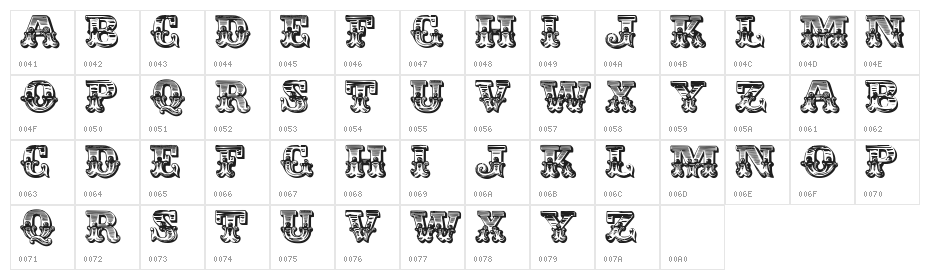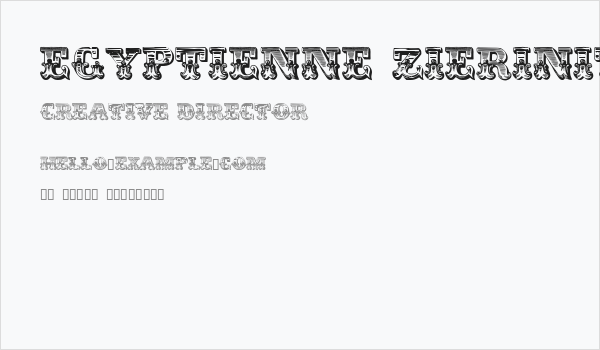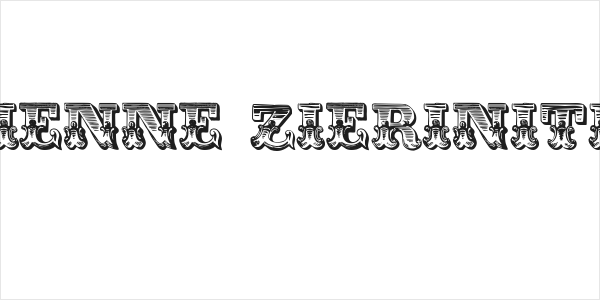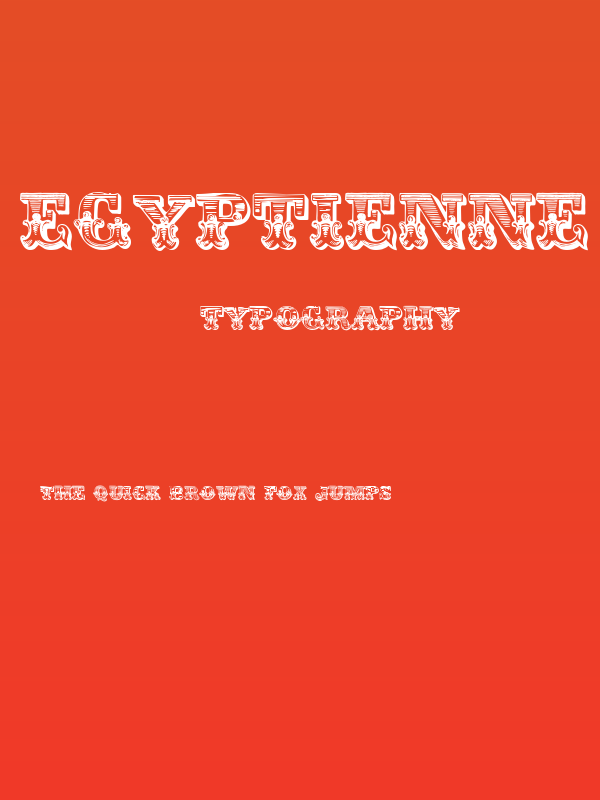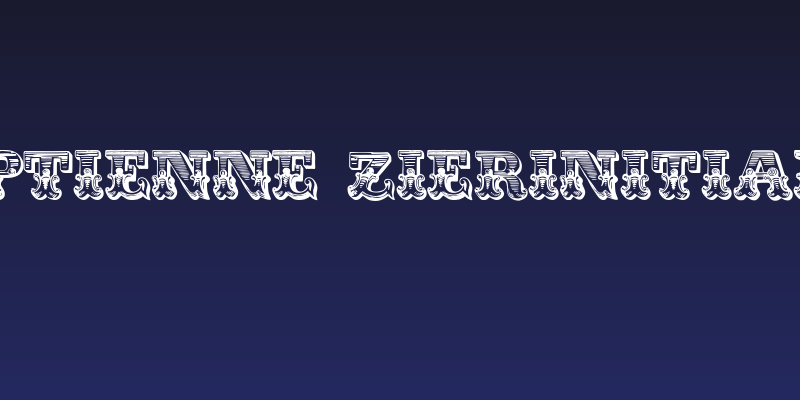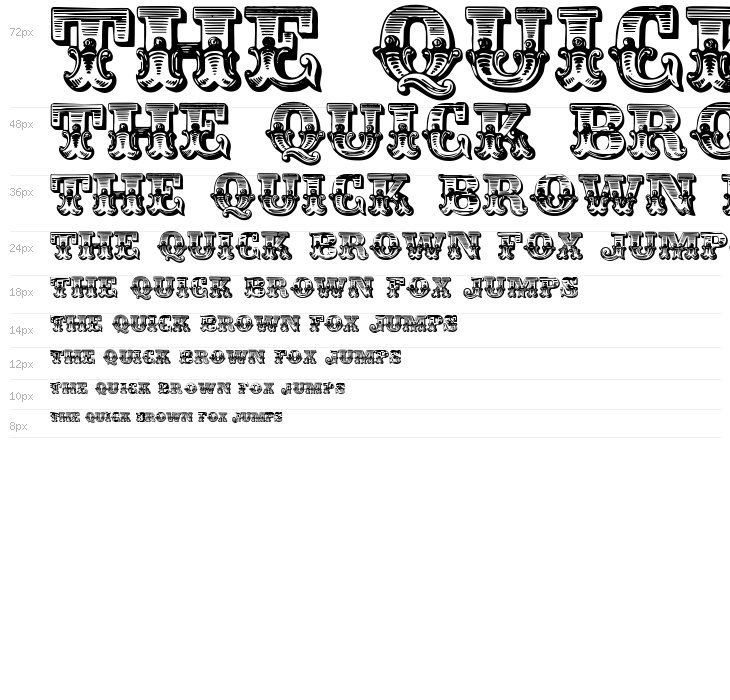
Egyptienne Zierinitialien Font
Egyptienne Zierinitialien Description
This font features an ornate and decorative style, characterized by intricate detailing and embellishments within each letterform. The uppercase letters exhibit a bold and striking presence, with elaborate flourishes that give a sense of grandeur and elegance. The design is reminiscent of vintage or classical typography, often used in historical or formal contexts. The absence of lowercase letters and numbers suggests a focus on display purposes, making it ideal for headlines or titles. The overall appearance is highly decorative, with a strong emphasis on visual impact.
| Proposed Projects | Perfect for vintage-themed posters, formal invitations, historical book covers, or any project requiring a touch of classical elegance. |